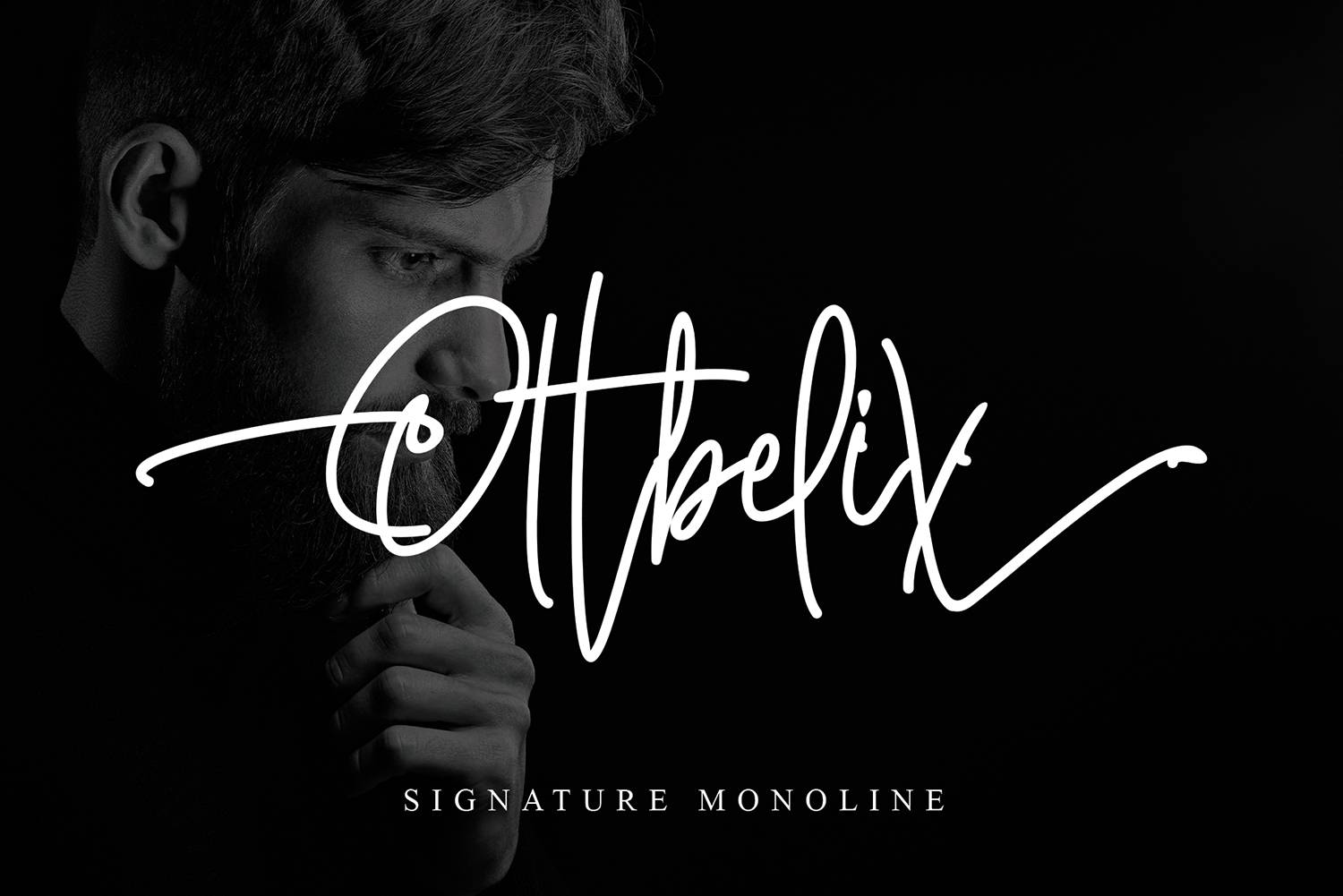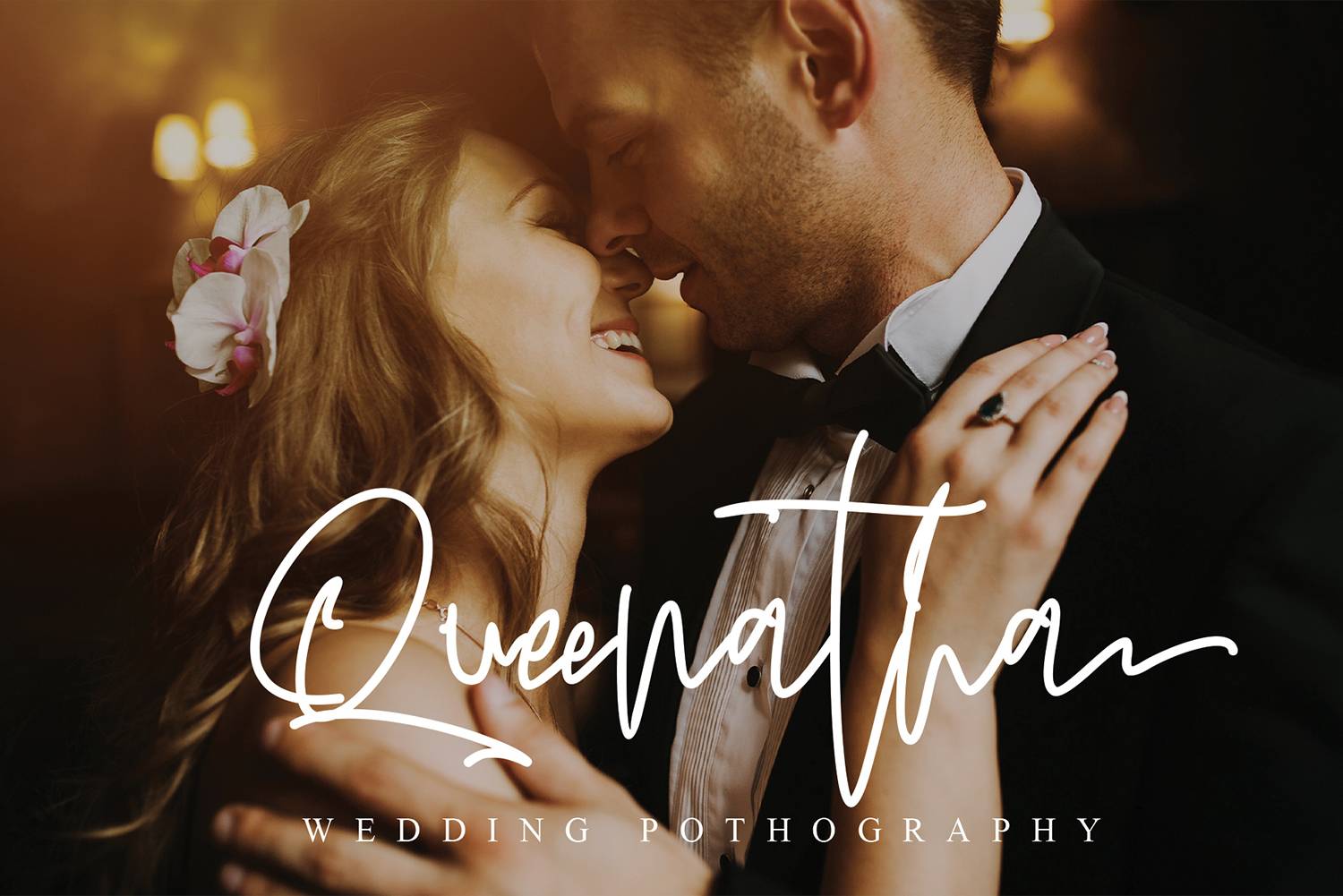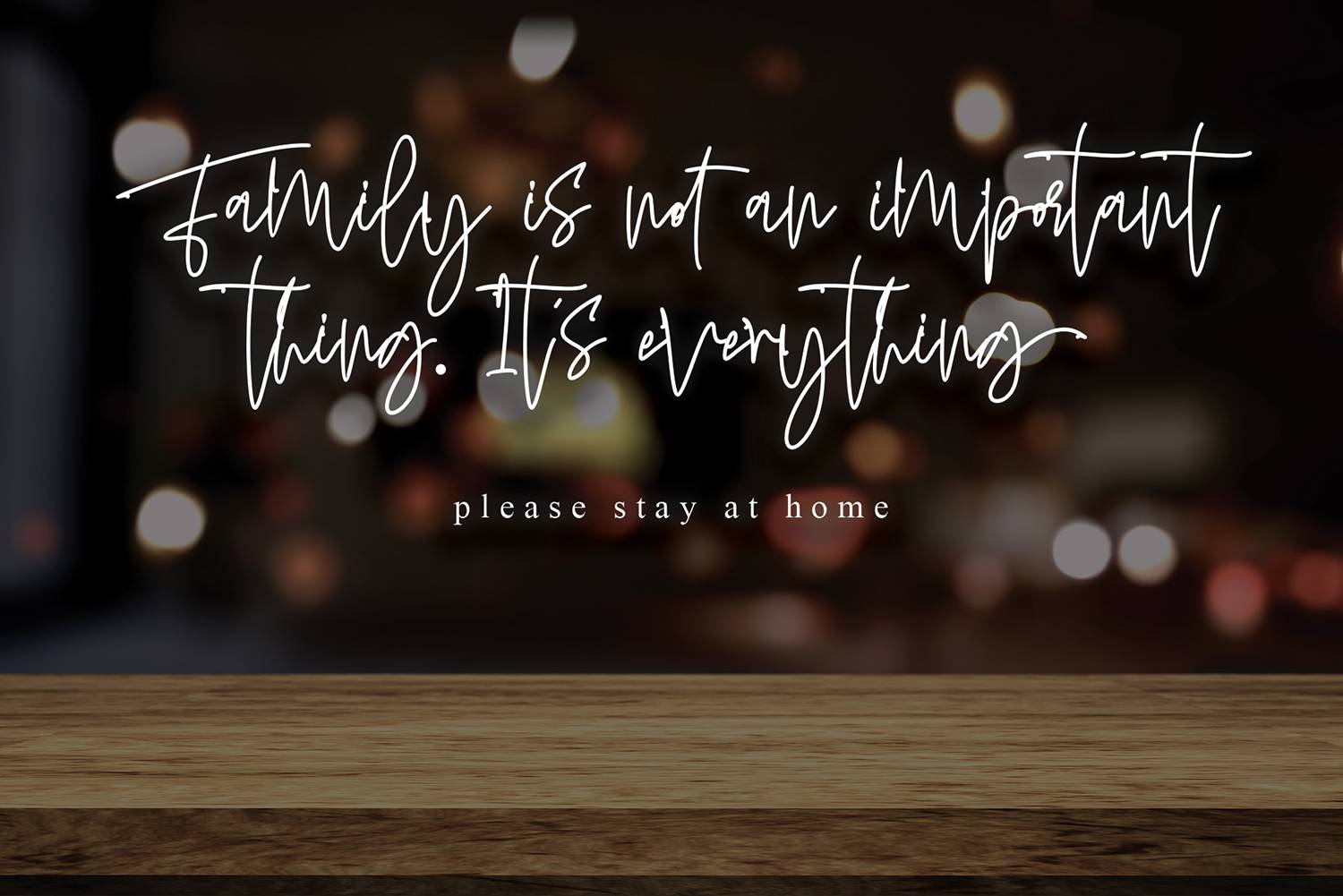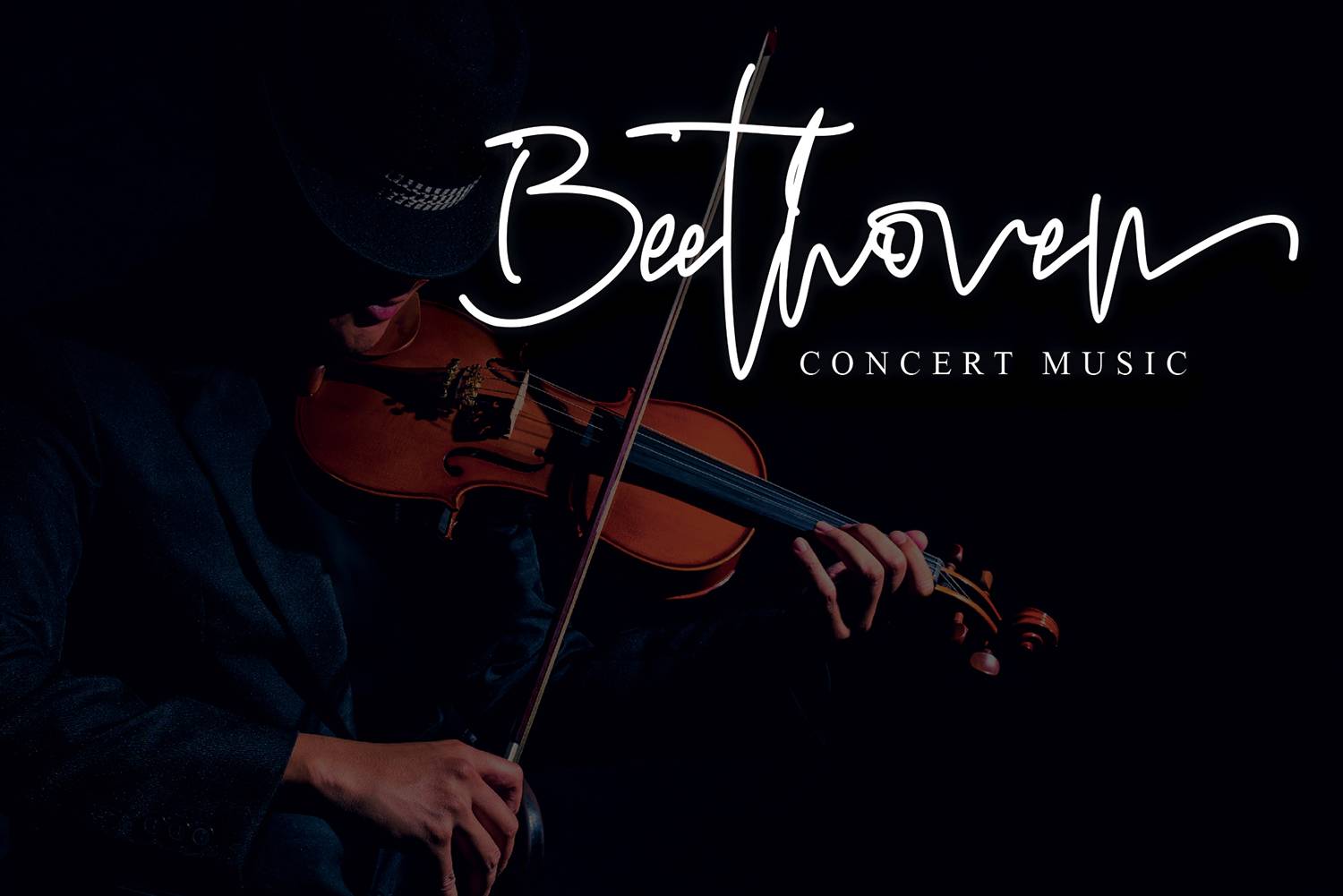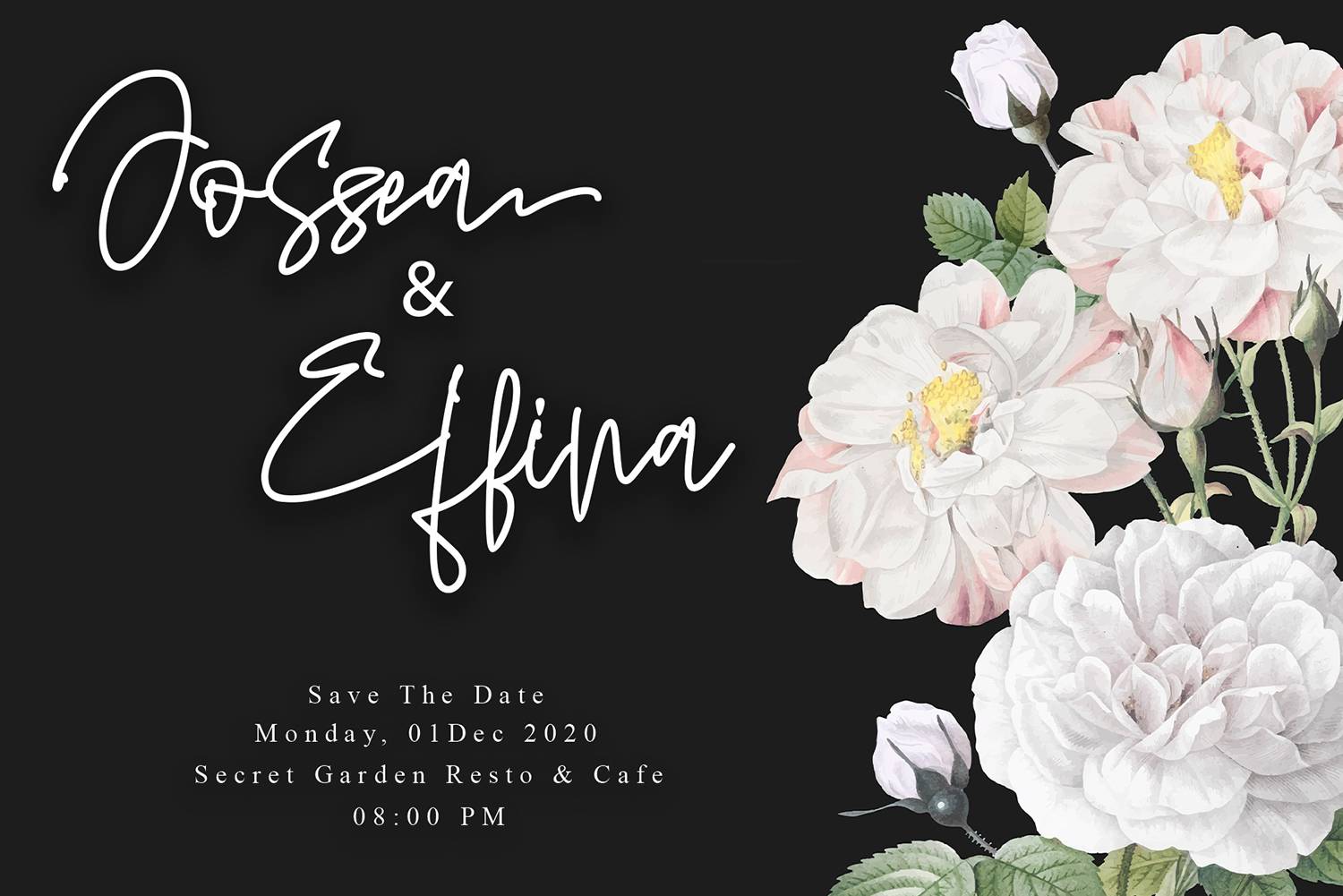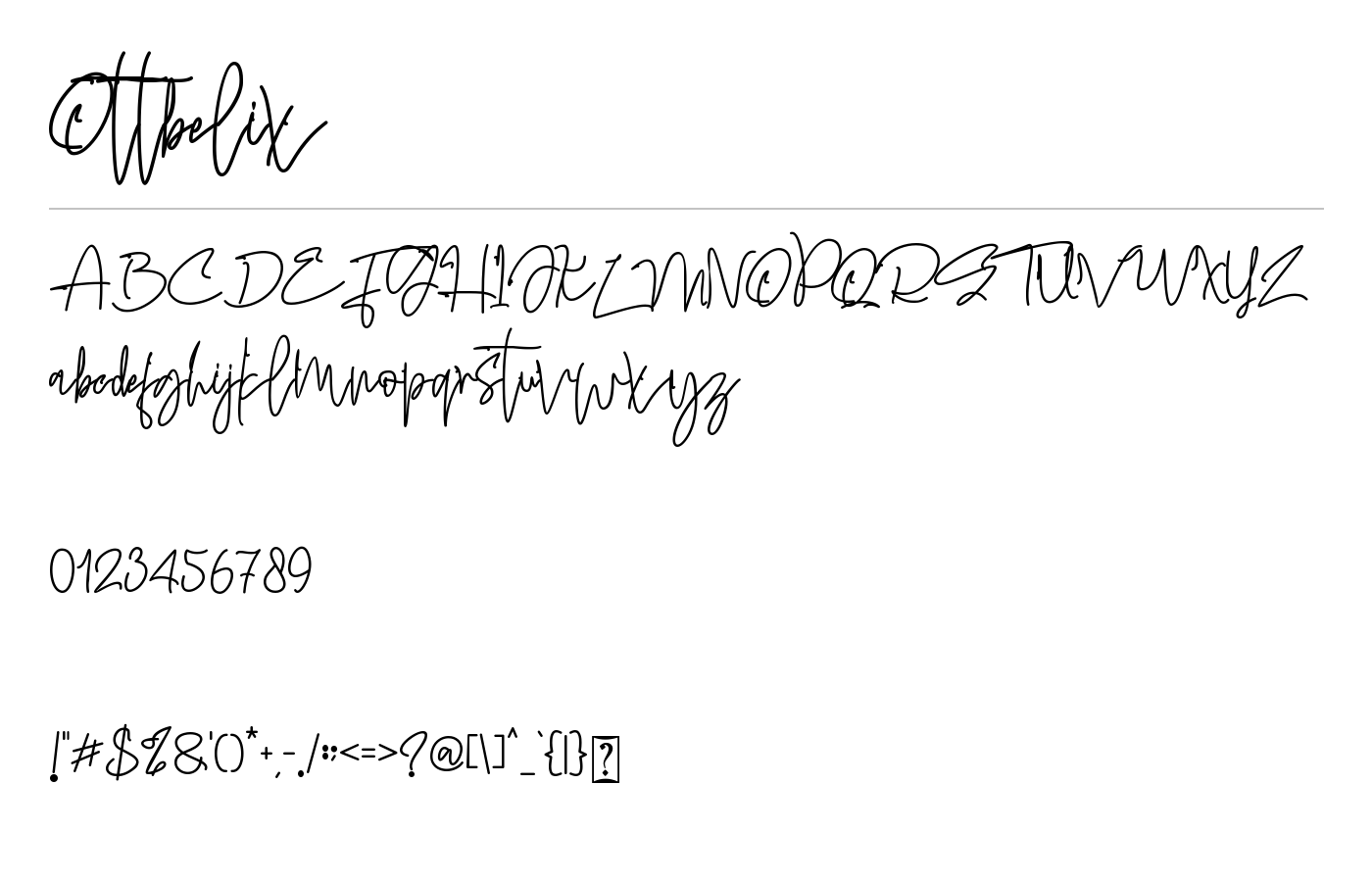
Ottbelix is an elegant, handwritten script font with a tall, slender structure and playful, flowing strokes that give it a personal, organic feel. Its light weight and loosely spaced letterforms create a sense of casual sophistication, making it ideal for creative branding, invitations, and stylish editorial projects where a touch of personality and charm is desired. This font works best in display uses where its unique, artistic character can truly shine.
Ottbelix Font
About Ottbelix Font
| Font family | Ottbelix Font |
| Designer | Stefani Letter |